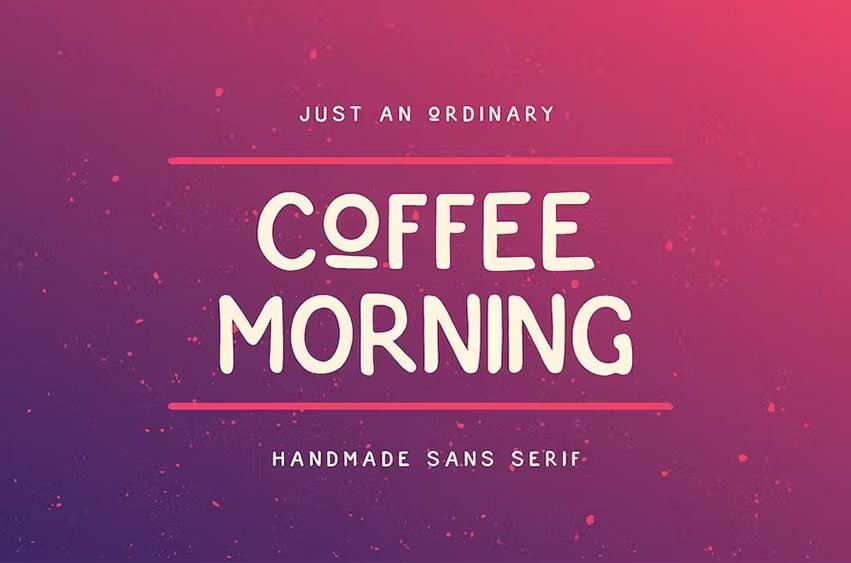
Coffee Morning Sans Font is just an ordinary handmade sans serif font. But it may speak louder, because of its imperfectness. Rough strokes, and imperfect shapes, make this typeface has its taste, like coffee in the morning, strong and bold.